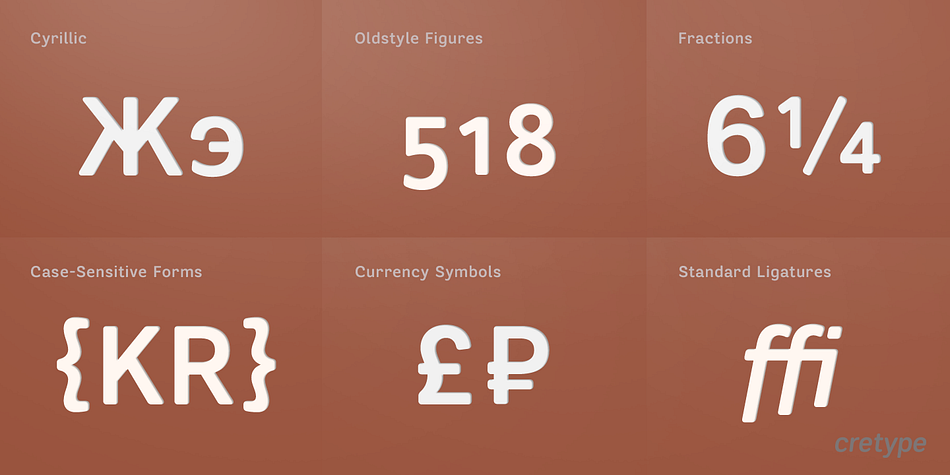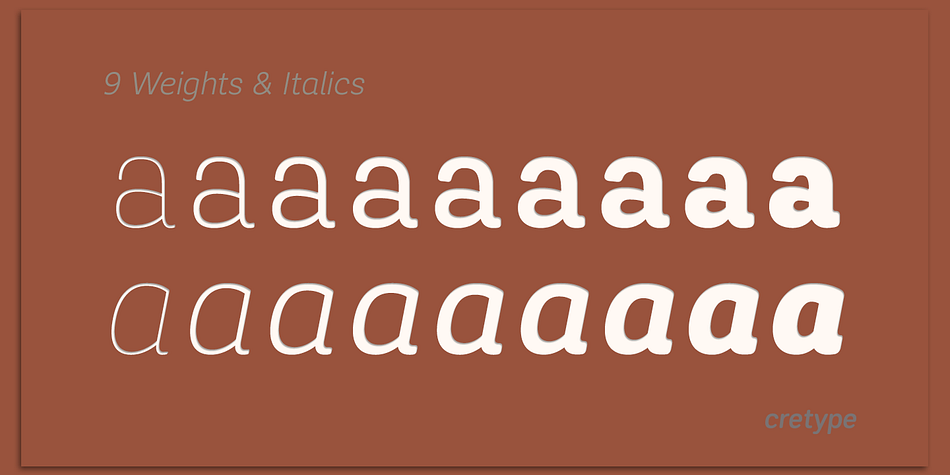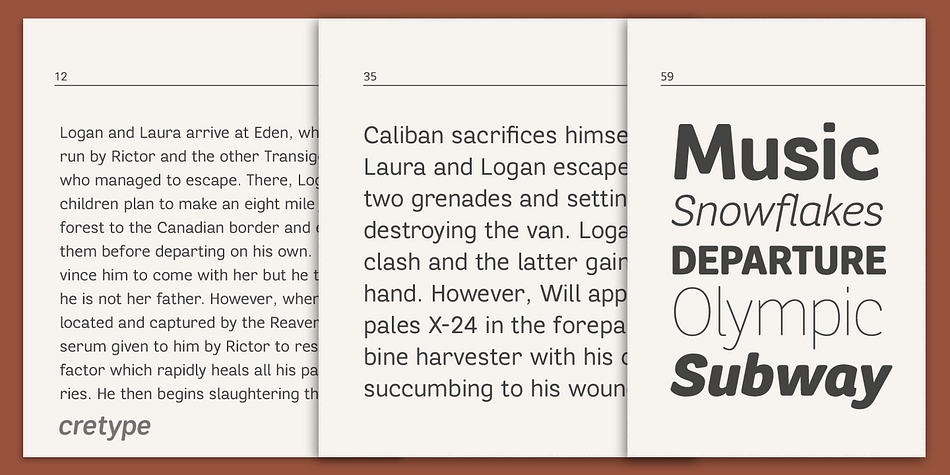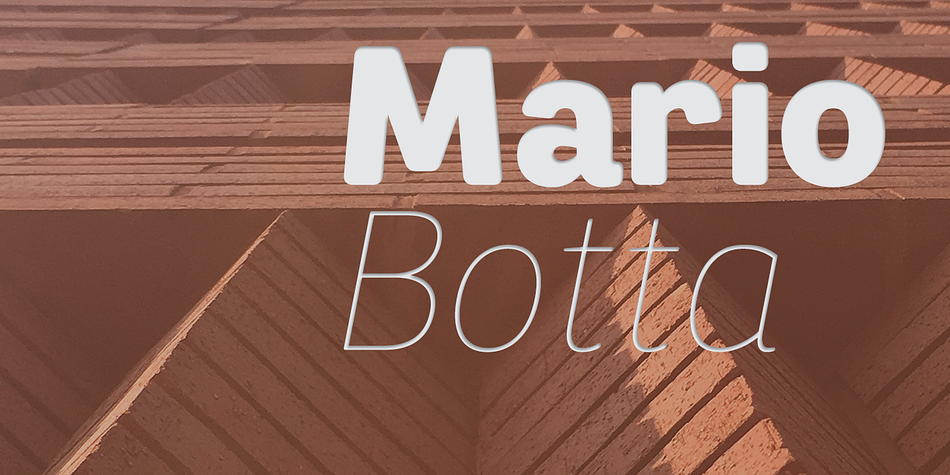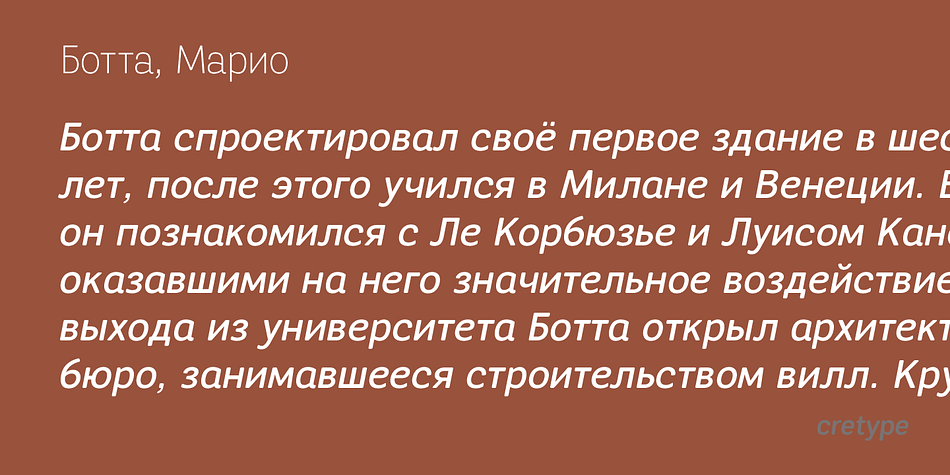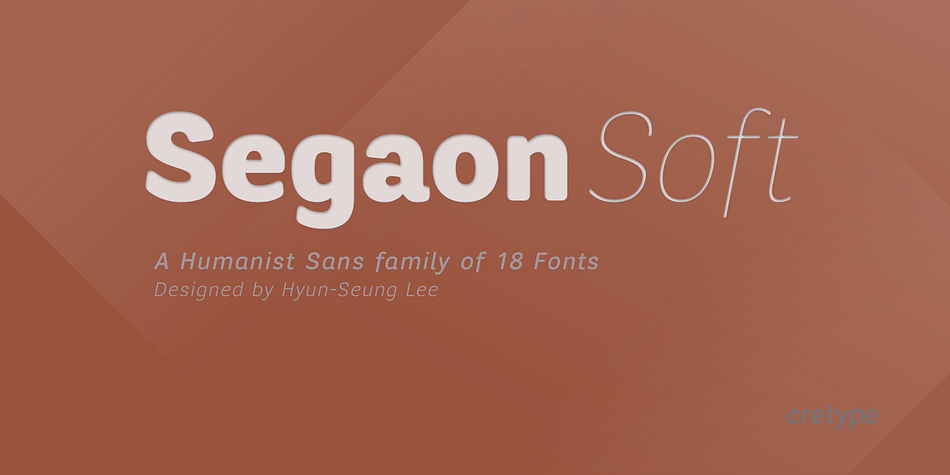
Designed by Hyun-Seung Lee, Segaon Soft is a sans serif font family. This typeface has eighteen styles and was published by cretype.
This family is the rounded version of Segaon family. Segaon Soft Family is a humanist sans-serif typeface that is clean, simple and highly readable. The spaces between individual letter forms are precisely adjusted to create the perfect typesetting.
Segaon is versatile type family of 18 fonts. Segaon family consists of 9 weights (Thin, ExtraLight, Light, Regular, Medium, Bold, ExtraBold, Heavy & Black) with their corresponding italics.
The Open Type fonts contain complete Latin 1252, Cyrillic, Central European 1250, Turkish 1254 character sets. Each font includes old-style figures, proportional figures, tabular figures, numerators, denominators, superscript, scientific inferiors, subscript, fractions and case features.
We highly recommend it for use in books, web pages, screen displays, and so on.